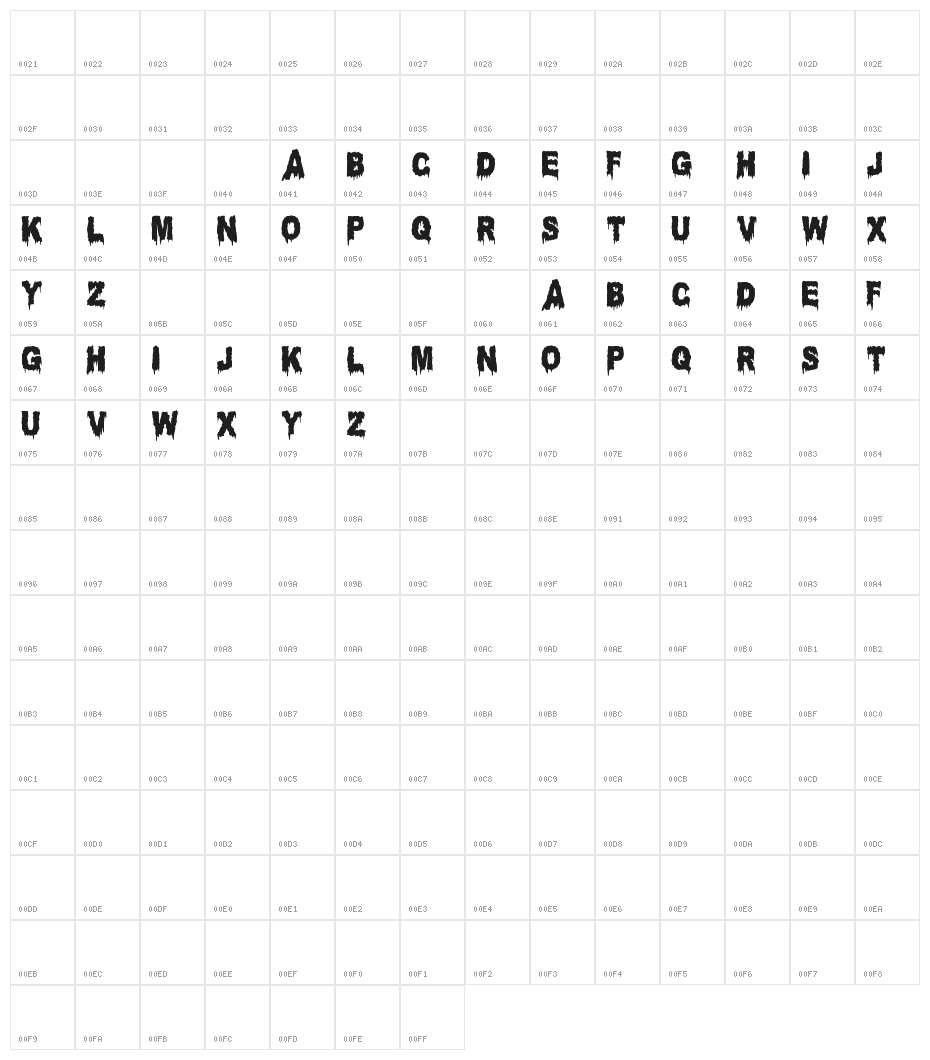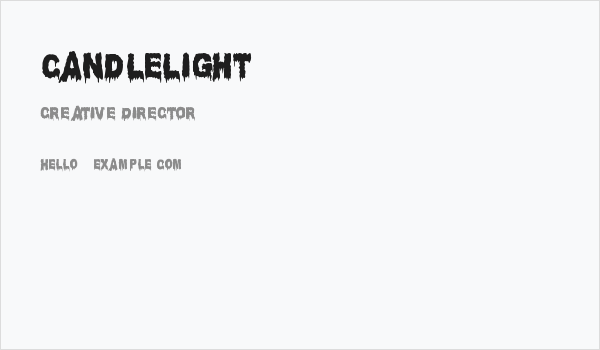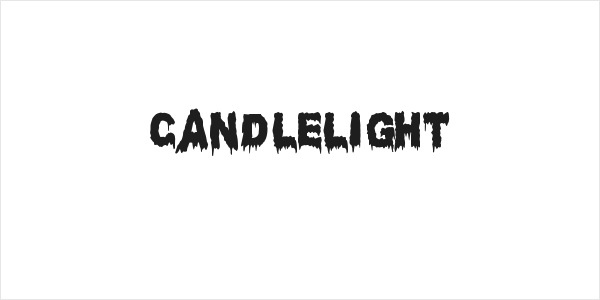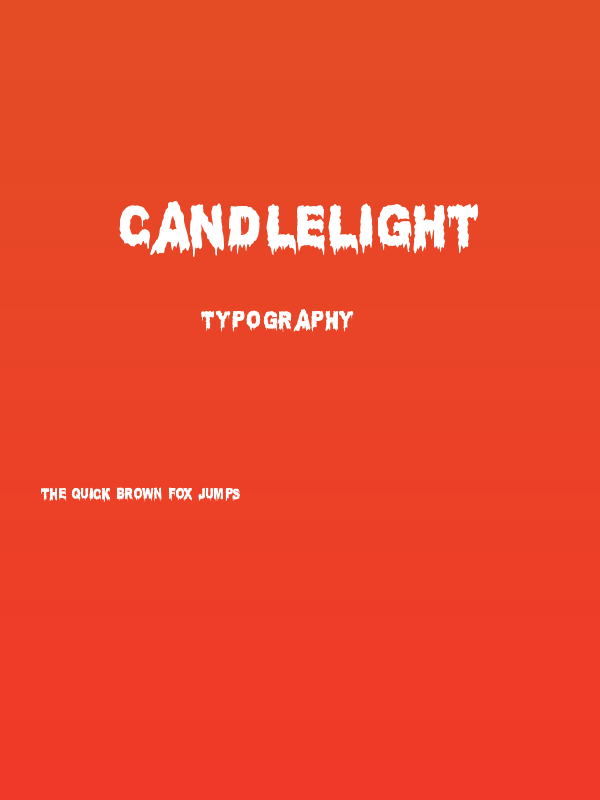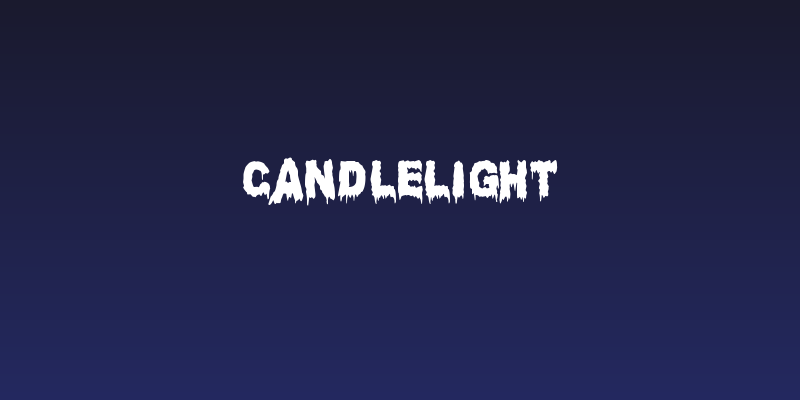
candlelight Font
candlelight Description
This font features a dripping, melting effect reminiscent of candle wax, creating a spooky and eerie atmosphere. The uppercase letters are bold and substantial, with uneven edges that give the impression of a slow, viscous flow. The style is highly decorative, making it ideal for themes related to horror, Halloween, or anything requiring a dramatic and unsettling aesthetic. The characters are closely spaced, enhancing the dense and compact appearance. The font's unique design is eye-catching and memorable, perfect for creating a strong visual impact.
Proposed ProjectsIdeal for Halloween-themed posters, horror movie titles, haunted house flyers, and spooky event invitations.